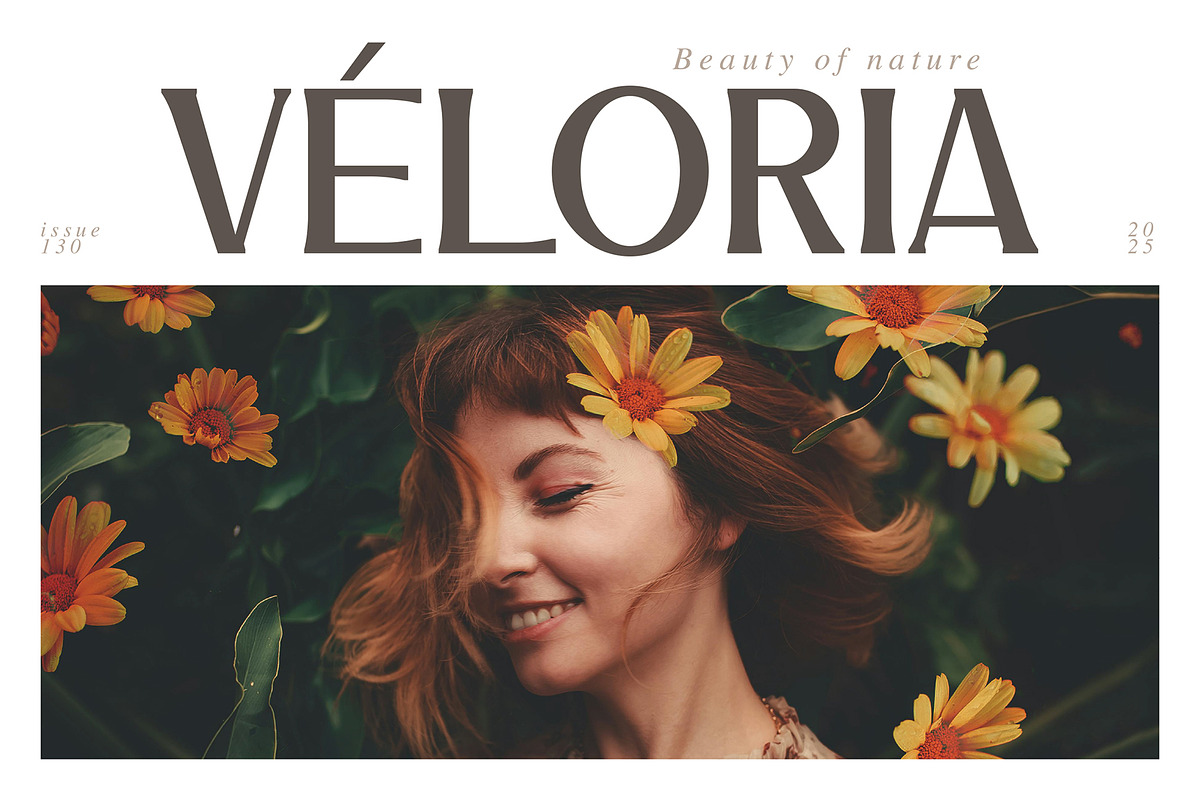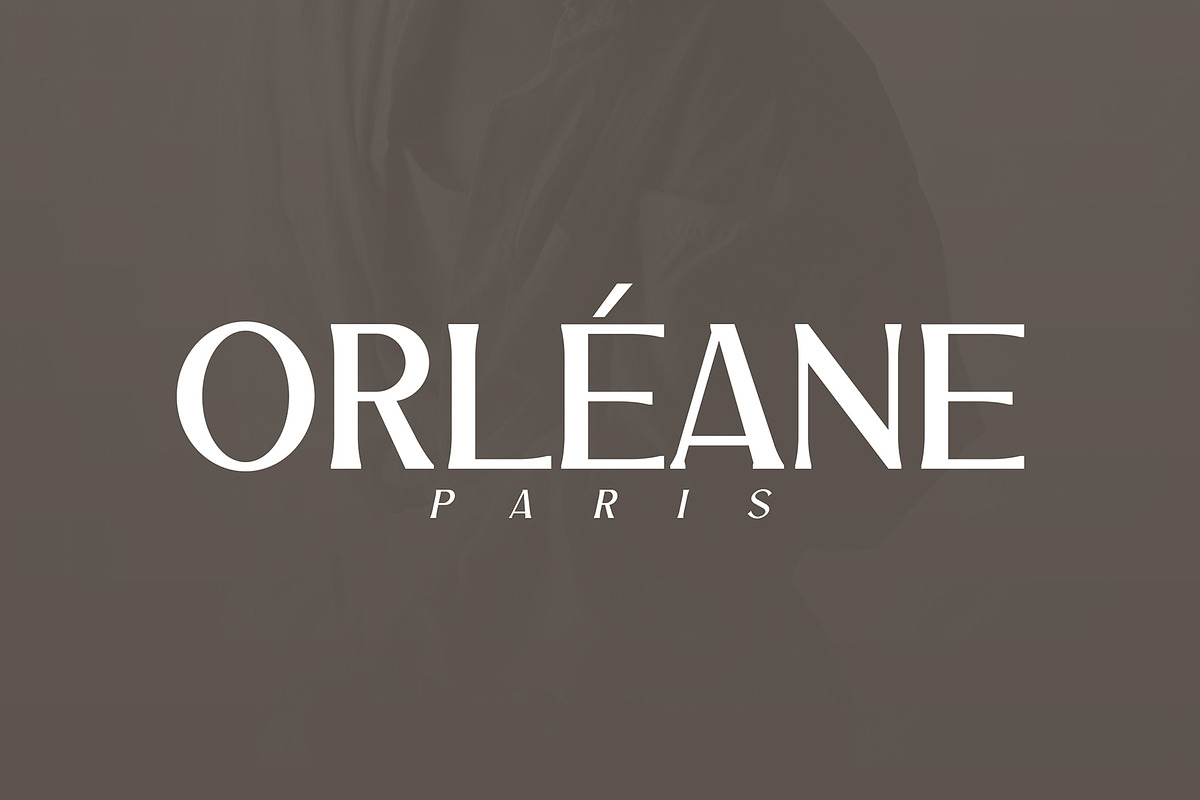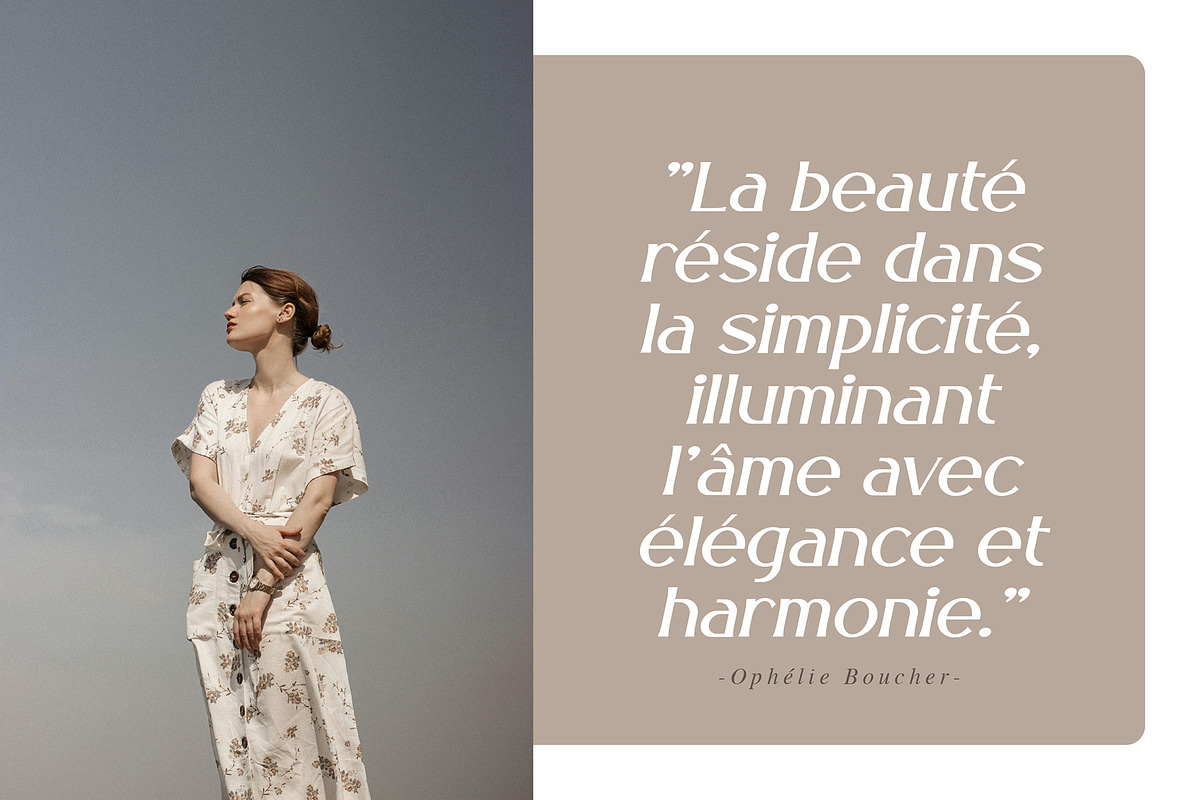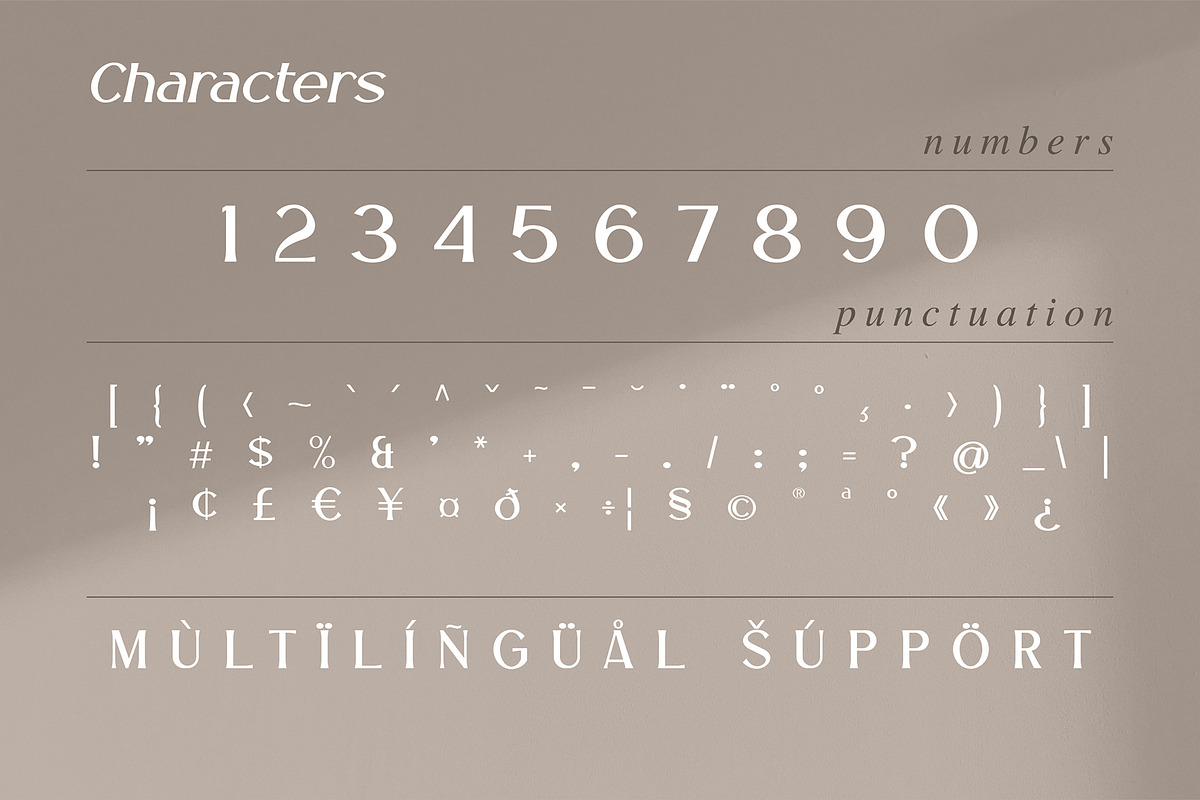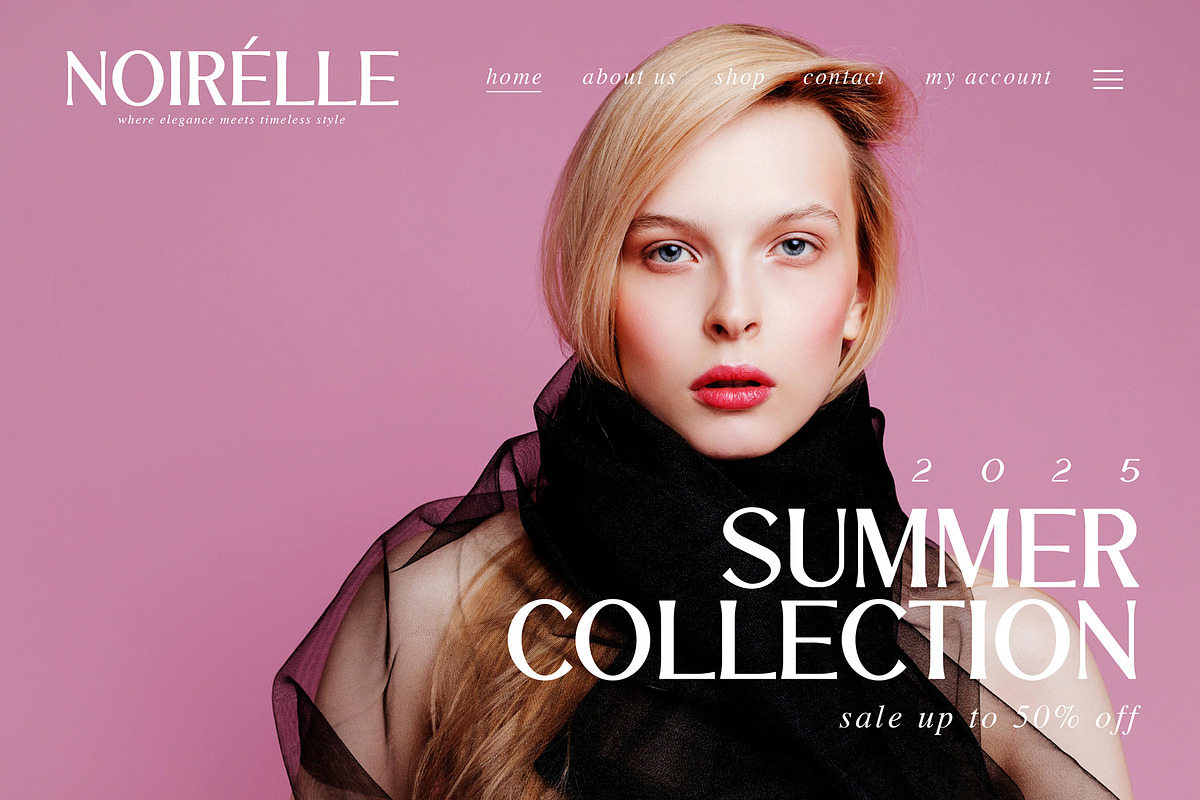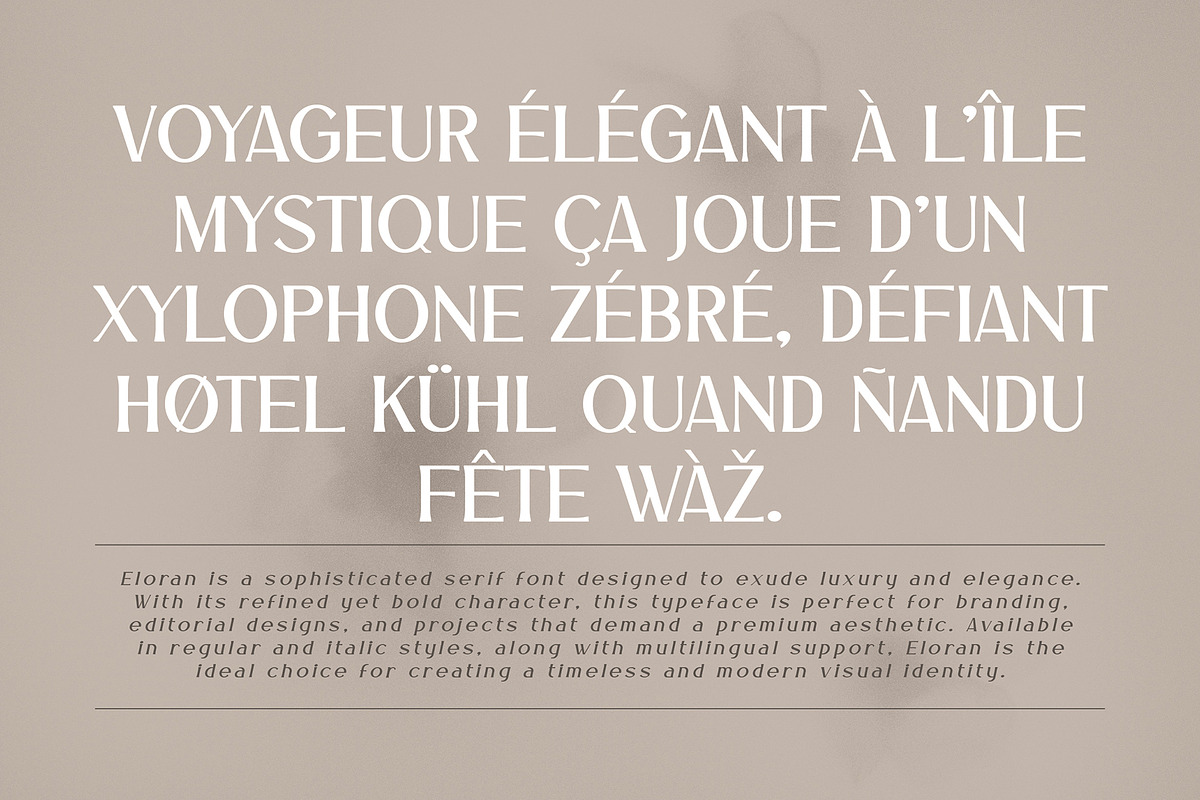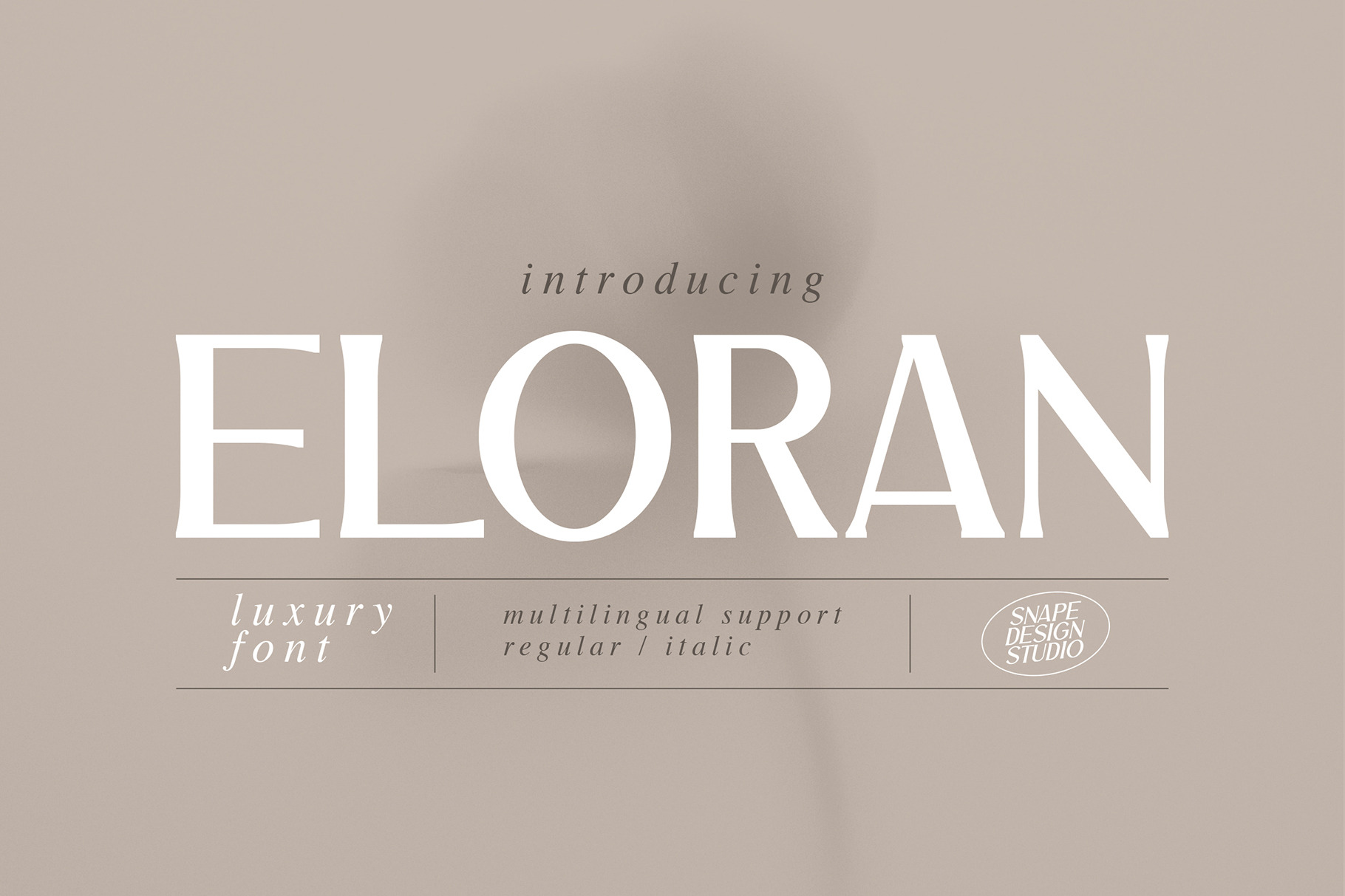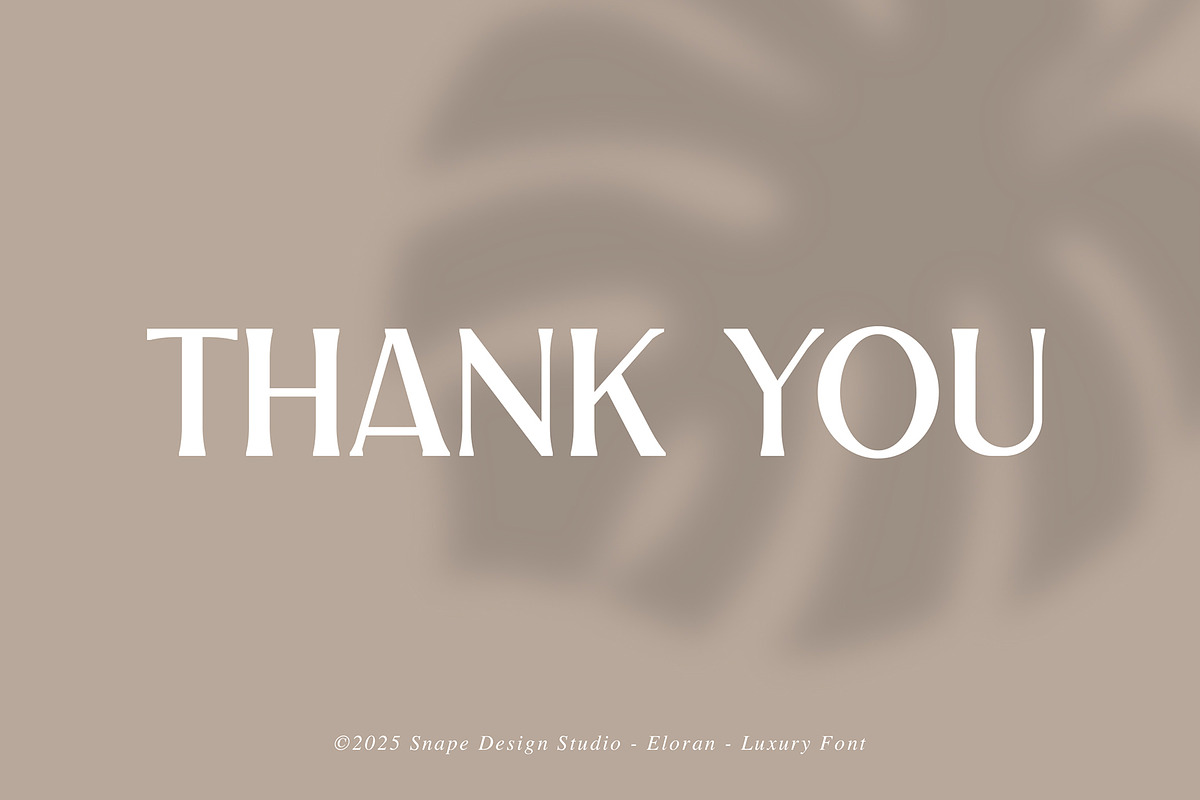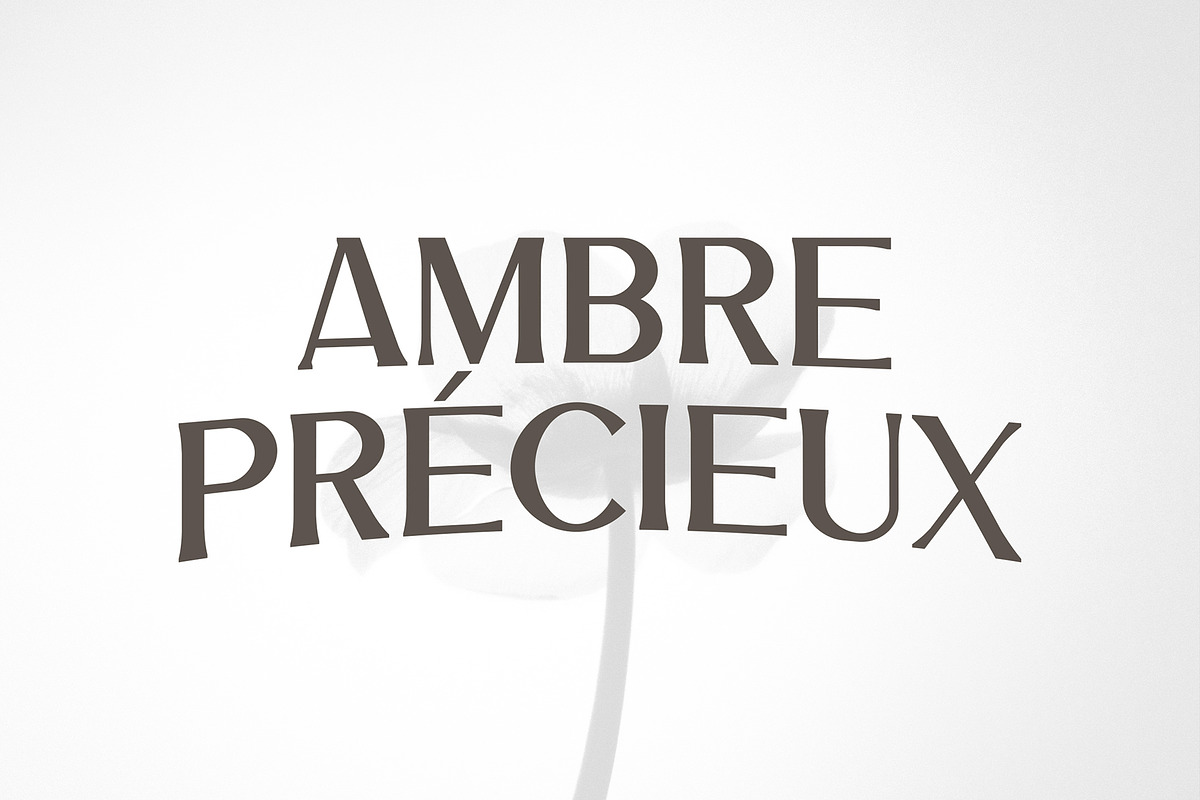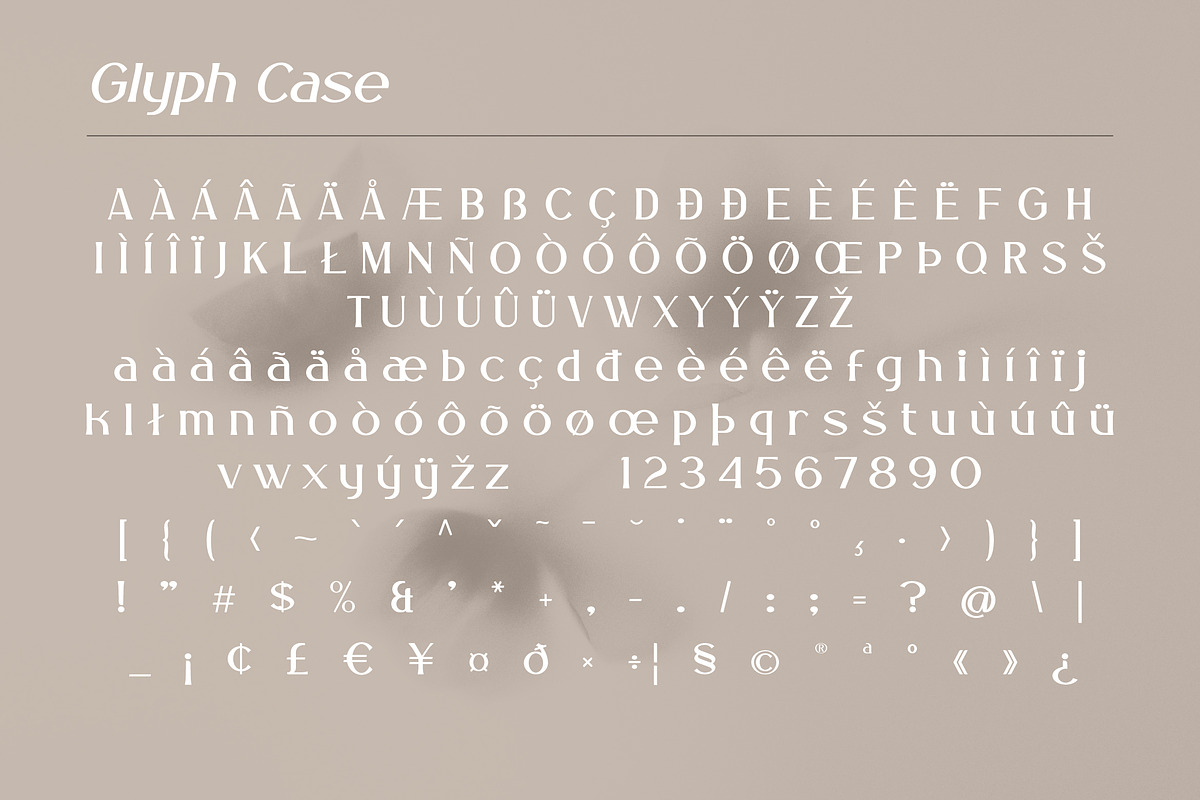
Eloran - Luxury Font
Eloran is a sophisticated serif font that embodies elegance, refinement, and timeless luxury. Designed with sharp, graceful letterforms and balanced proportions, Eloran is perfect for high-end branding, editorial layouts, fashion campaigns, and premium product packaging.
Crafted to exude exclusivity and sophistication, this font seamlessly blends classic aesthetics with a modern touch, making it an excellent choice for those who seek a distinguished and polished look. With its delicate yet commanding presence, Eloran enhances the visual appeal of any design, leaving a lasting impression.
Key Features: ✔ Elegant and refined luxury serif design ✔ Perfect for high-end branding, editorial, and sophisticated projects ✔ Ideal for logos, invitations, fashion magazines, and premium packaging ✔ Multilingual support for global usability ✔ Available in Regular and Italic styles for added versatility ✔ Comes in OTF and TTF formats for seamless compatibility
Elevate your designs with Eloran, where sophistication meets timeless beauty.